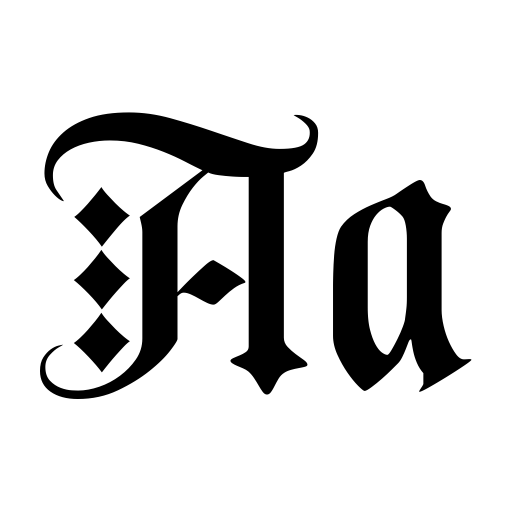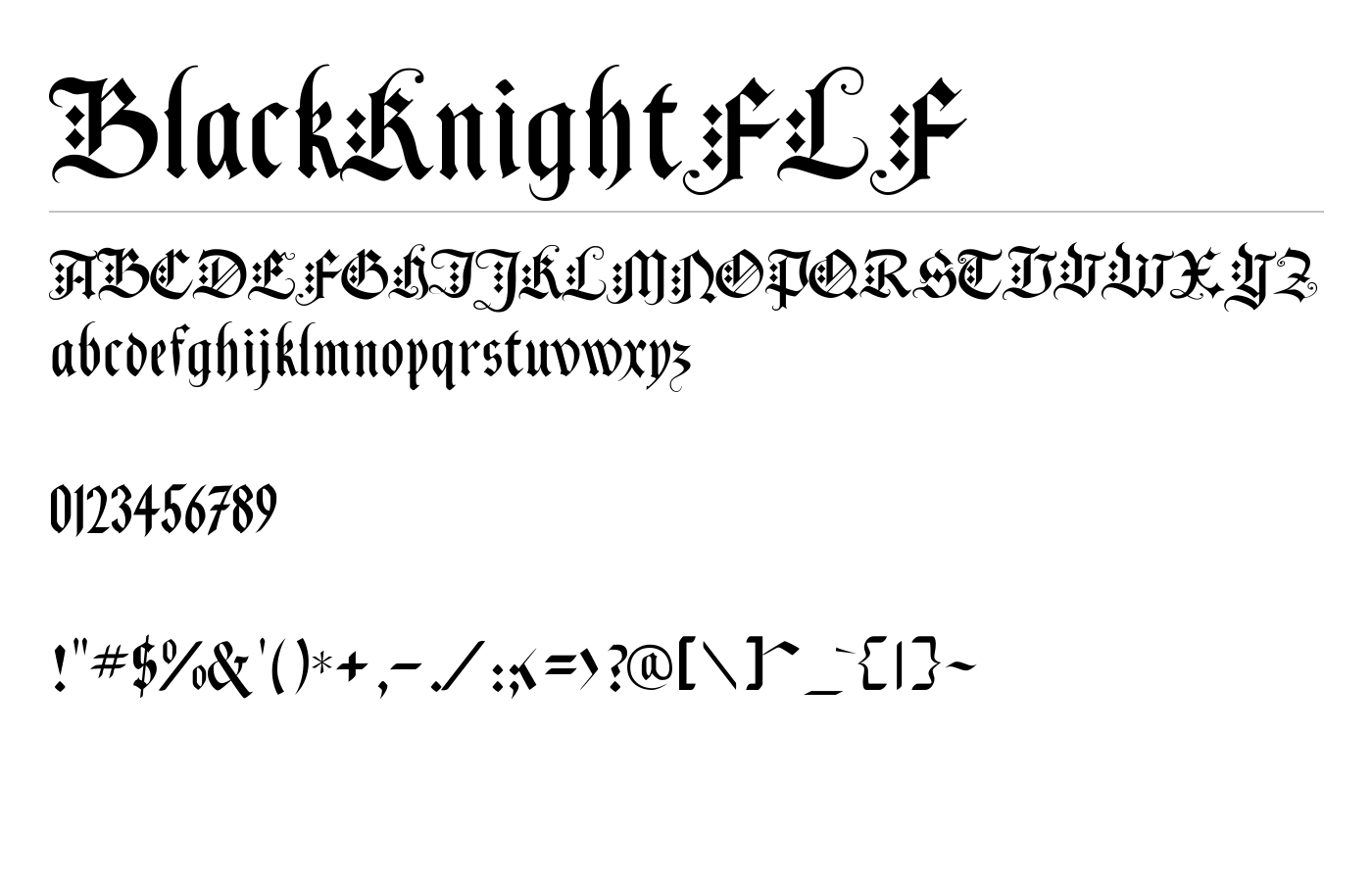
BlackKnightFLF is a highly decorative blackletter serif font with a bold, sharp stroke style that conveys a strong gothic and medieval character. Its intricate details and elaborate flourishes make it ideal for creating a vintage, dramatic, or historical atmosphere, particularly for logos, headlines, and branding in fantasy or classic themes. This font shines in designs that require a striking traditional look with an artistic, old-world flair.
BlackKnightFLF Font
About BlackKnightFLF Font